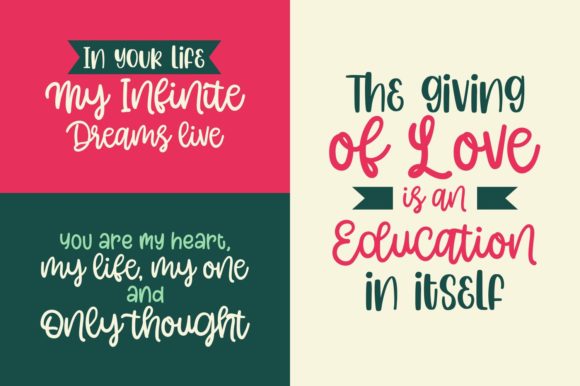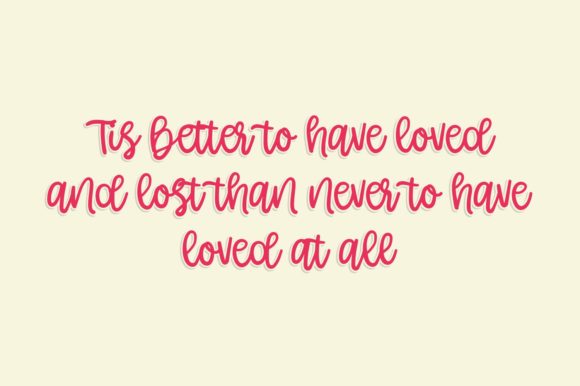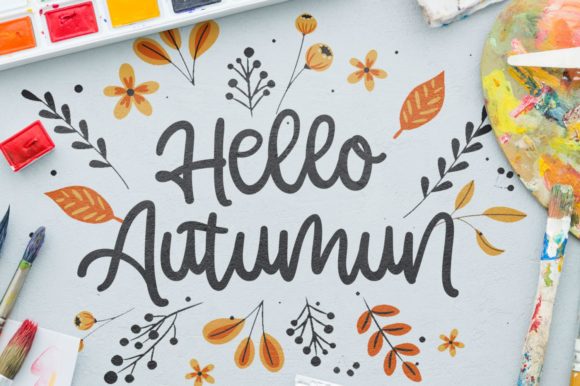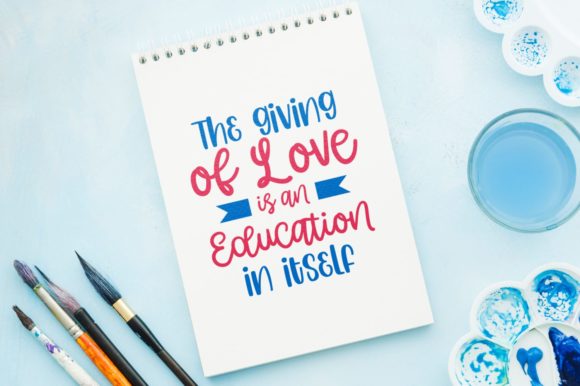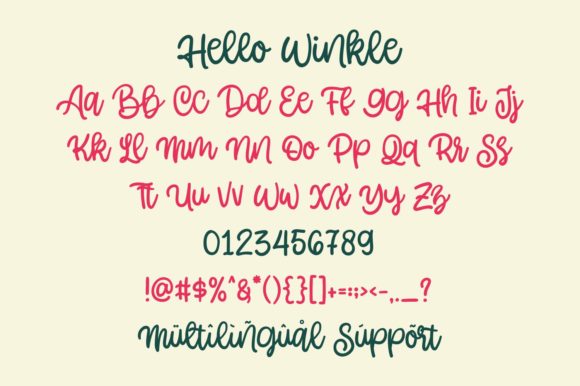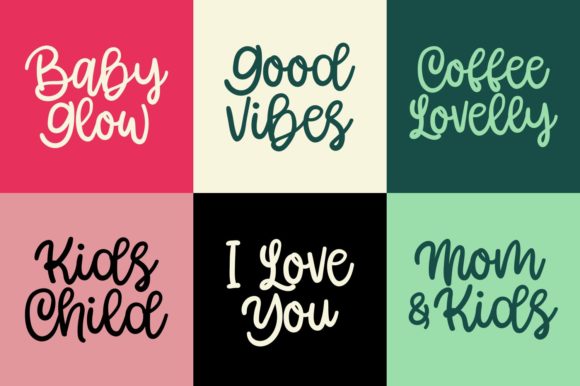
Introduction to Hello Winkle Font
Remember that moment when you stumbled upon the perfect font for your creative project, and it instantly sparked a wave of excitement and inspiration? For designers, finding the right font can be a game-changer. It’s the difference between a mediocre design and a stunning one that leaves a lasting impression.
That’s exactly what the Hello Winkle Font offers – a sweet, soft hand-lettered script font that’s perfect for creating gorgeous designs. Its playful rounded characters and authentic feel make it an invaluable design resource for any creative project. Whether you’re working on a wedding invitation, social media post, or greeting card, Hello Winkle Font is sure to add a touch of magic to your design.
Key Features of Hello Winkle Font
- High-quality design resource for creative projects, ideal for digital use
- Designed with a unique and playful style, making it perfect for various creative applications
Honest Review: Hello Winkle Font
As a designer, I’m always on the lookout for high-quality design resources that can elevate my creative projects. Recently, I stumbled upon the Hello Winkle Font, and I’m excited to share my honest review with you.
- ✨ Beautifully crafted letters with a unique, playful feel that’s perfect for projects that need a bit of whimsy.
- ⚠️ The font is only available in a limited range of weights, which might not be ideal for projects that require a wide range of typography options.
- ⚠️ Some users may find the font too ornate or busy, which could be a drawback for certain design styles.
Overall, I’m impressed with the Hello Winkle Font’s unique charm and high-quality design. While it may not be perfect for every project, it’s definitely a great addition to any designer’s toolkit. If you’re looking for a fun and playful font to add some personality to your creative project, the Hello Winkle Font is definitely worth checking out.
How to Use Hello Winkle Font
Some tips for getting the most out of the Hello Winkle Font include using it with a transparent background to create a more modern look, experimenting with different font sizes and styles to add visual interest, and combining it with other design elements to create a cohesive design.
The Hello Winkle Font is perfect for a variety of design projects, including logos, business cards, social media graphics, and presentations. It’s also great for creating digital products, such as ebooks and courses, and can be used to add a touch of personality to your website or blog.